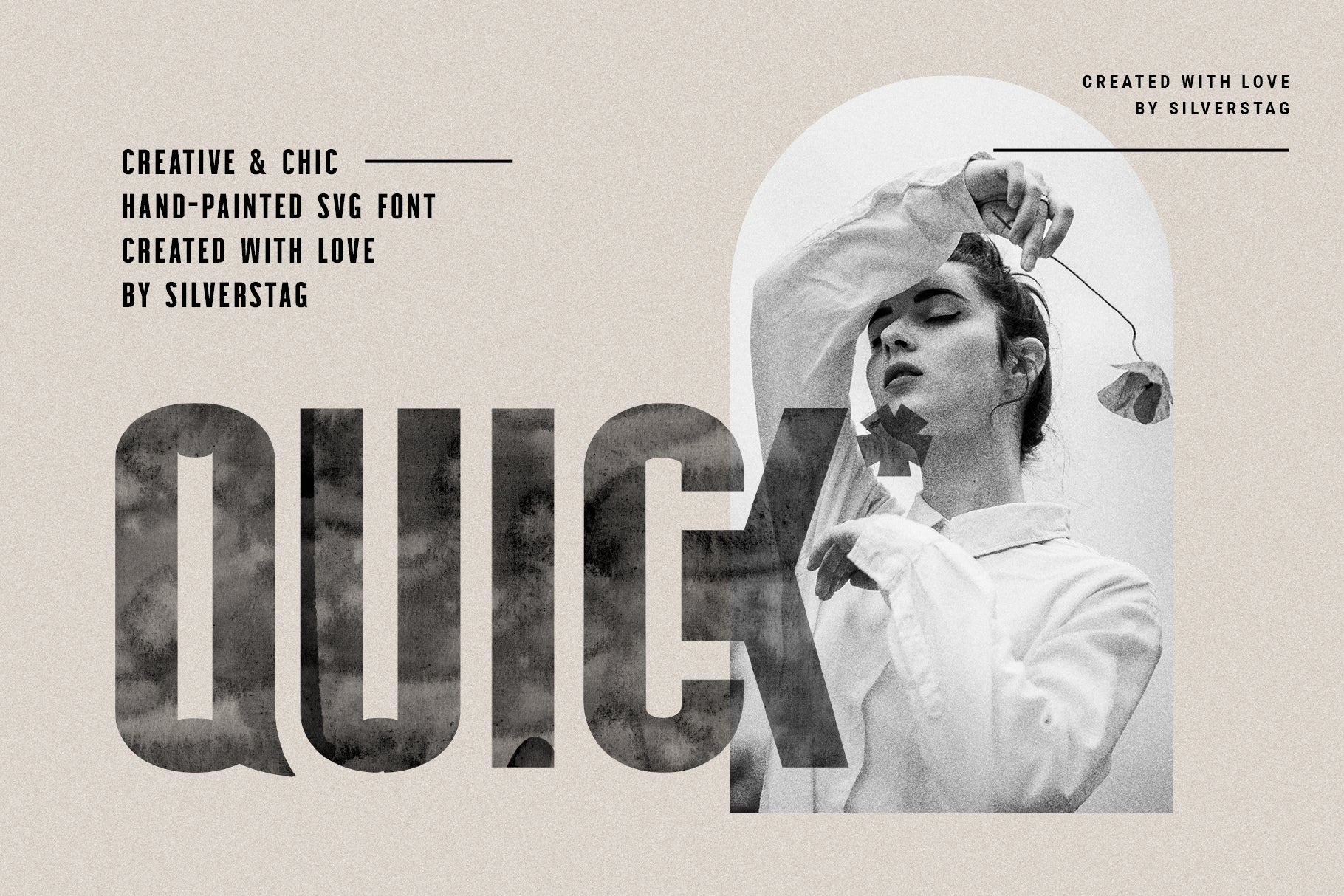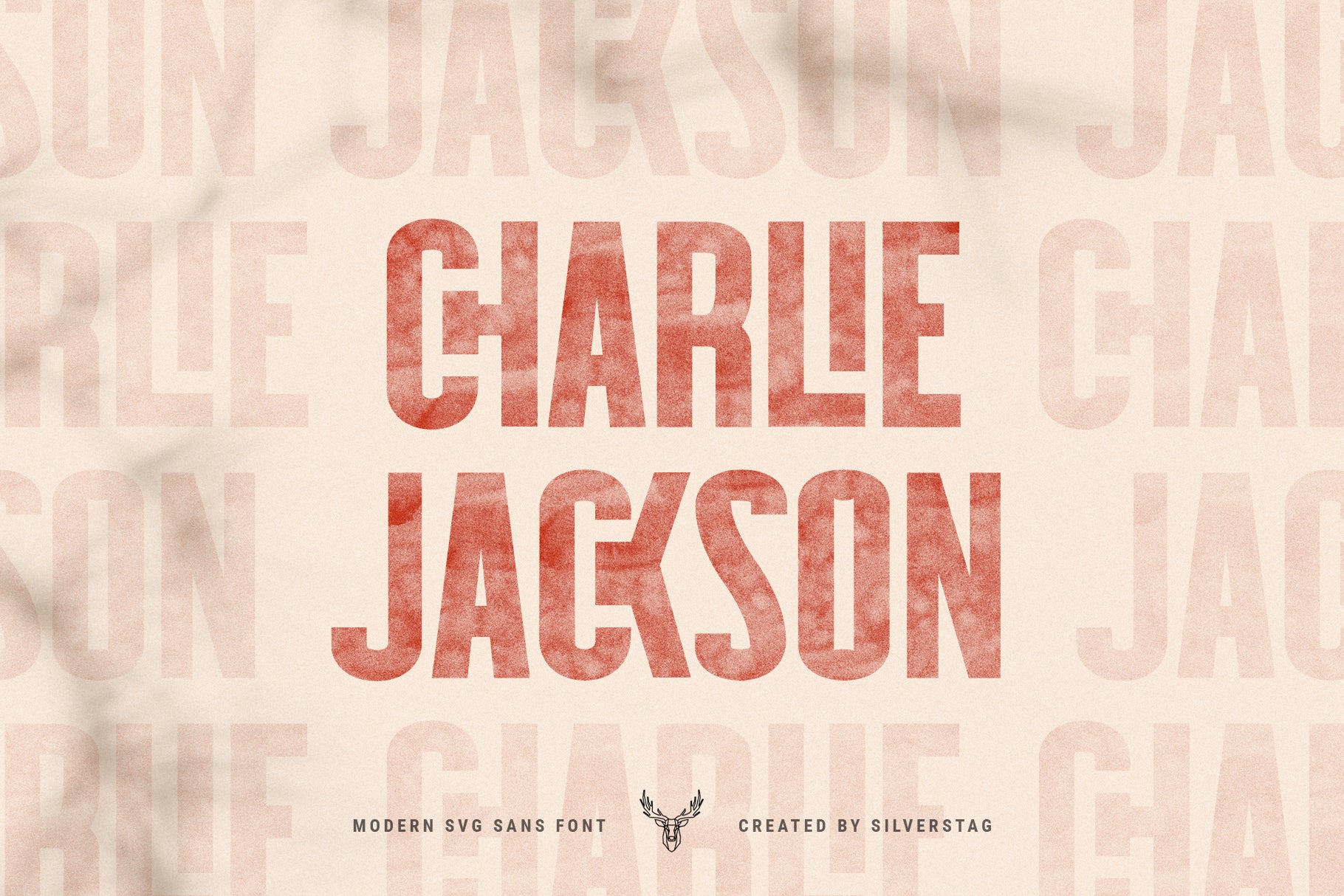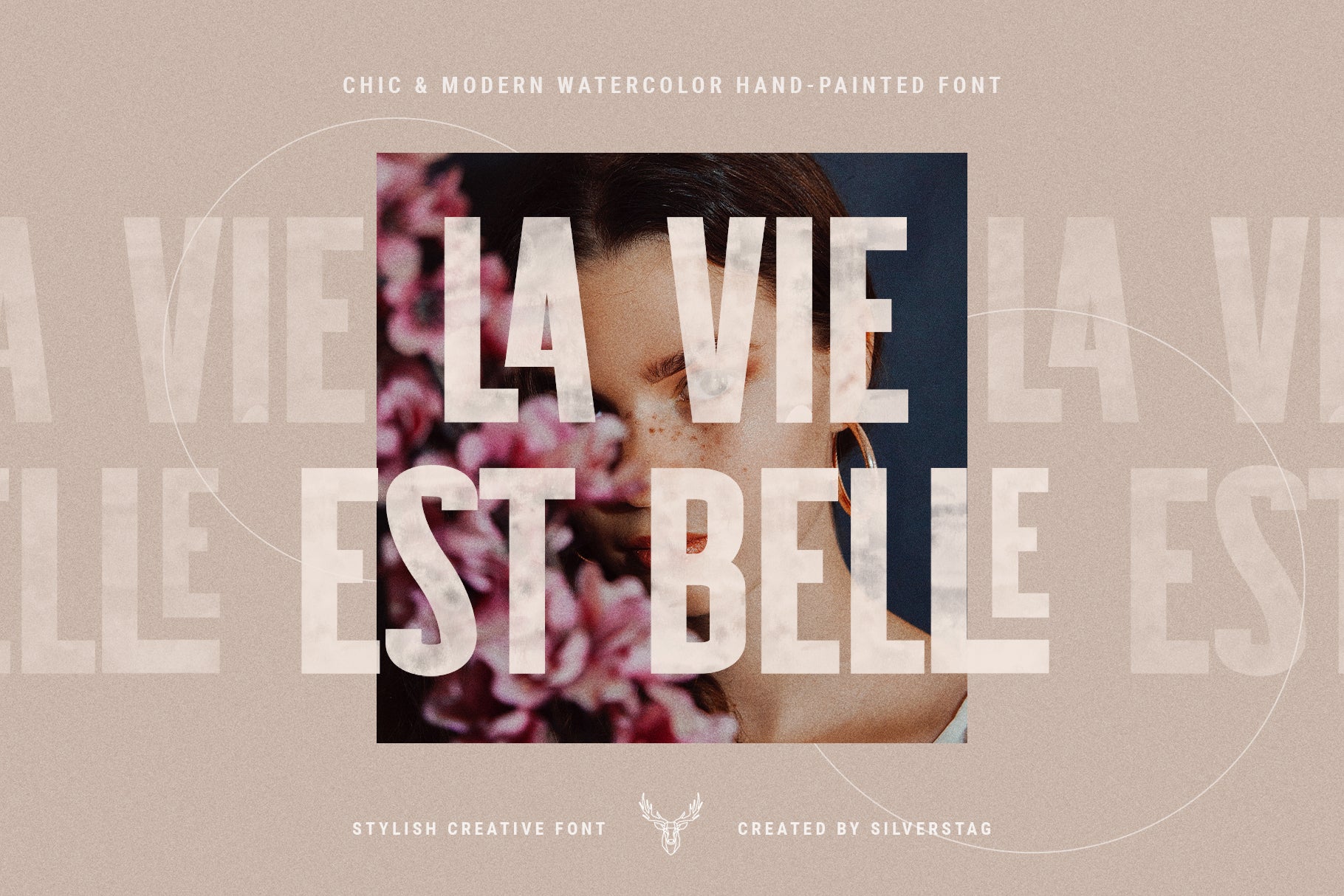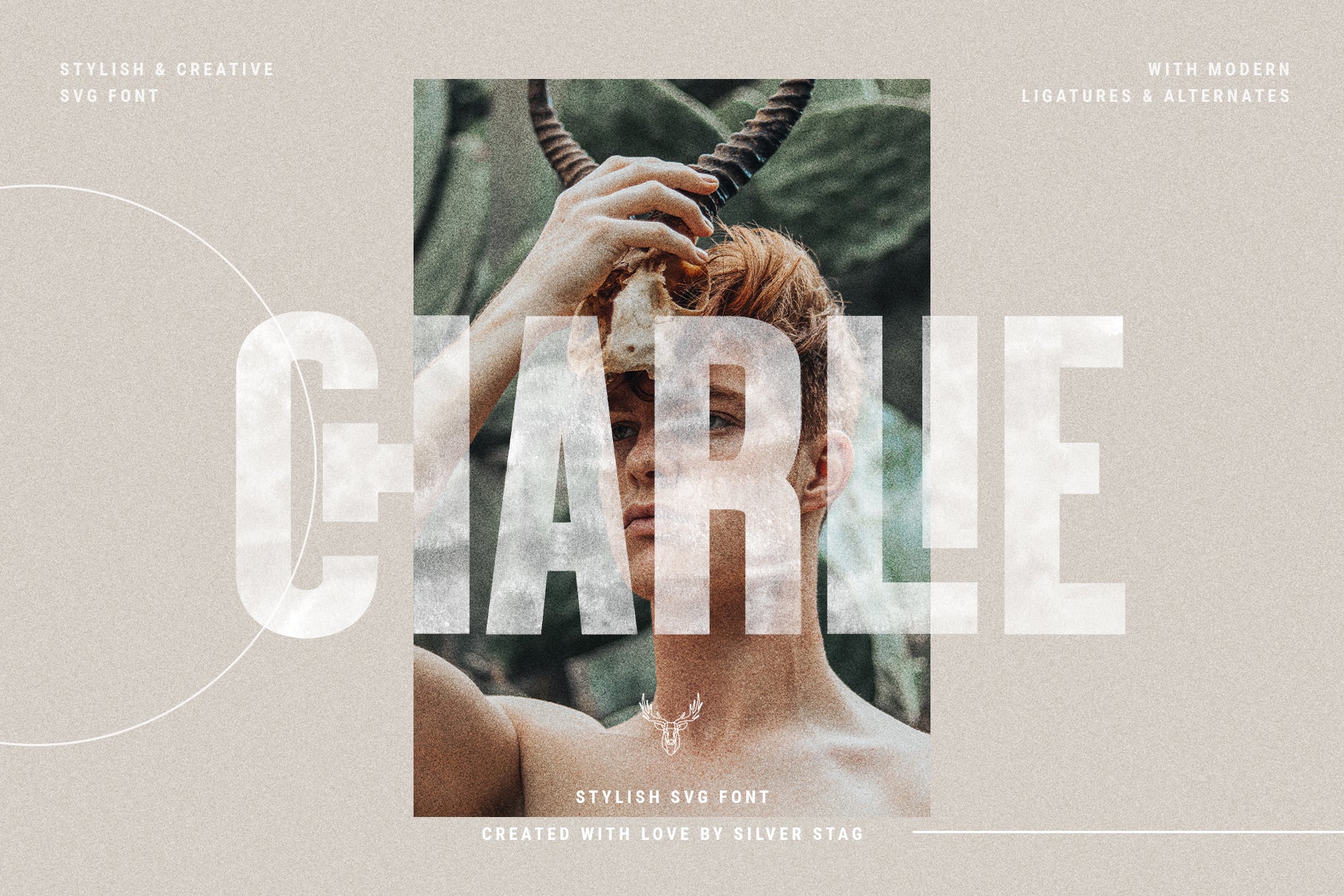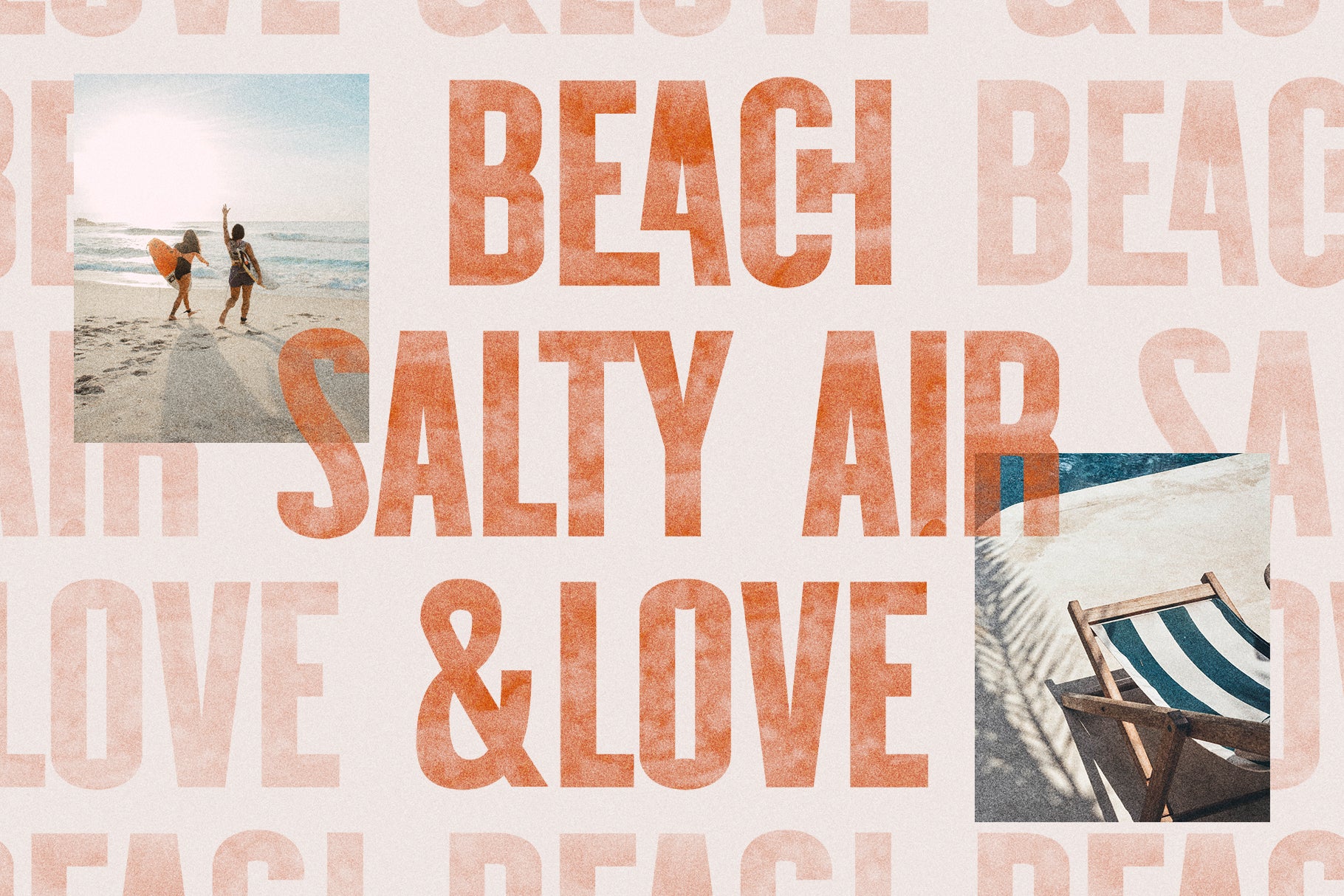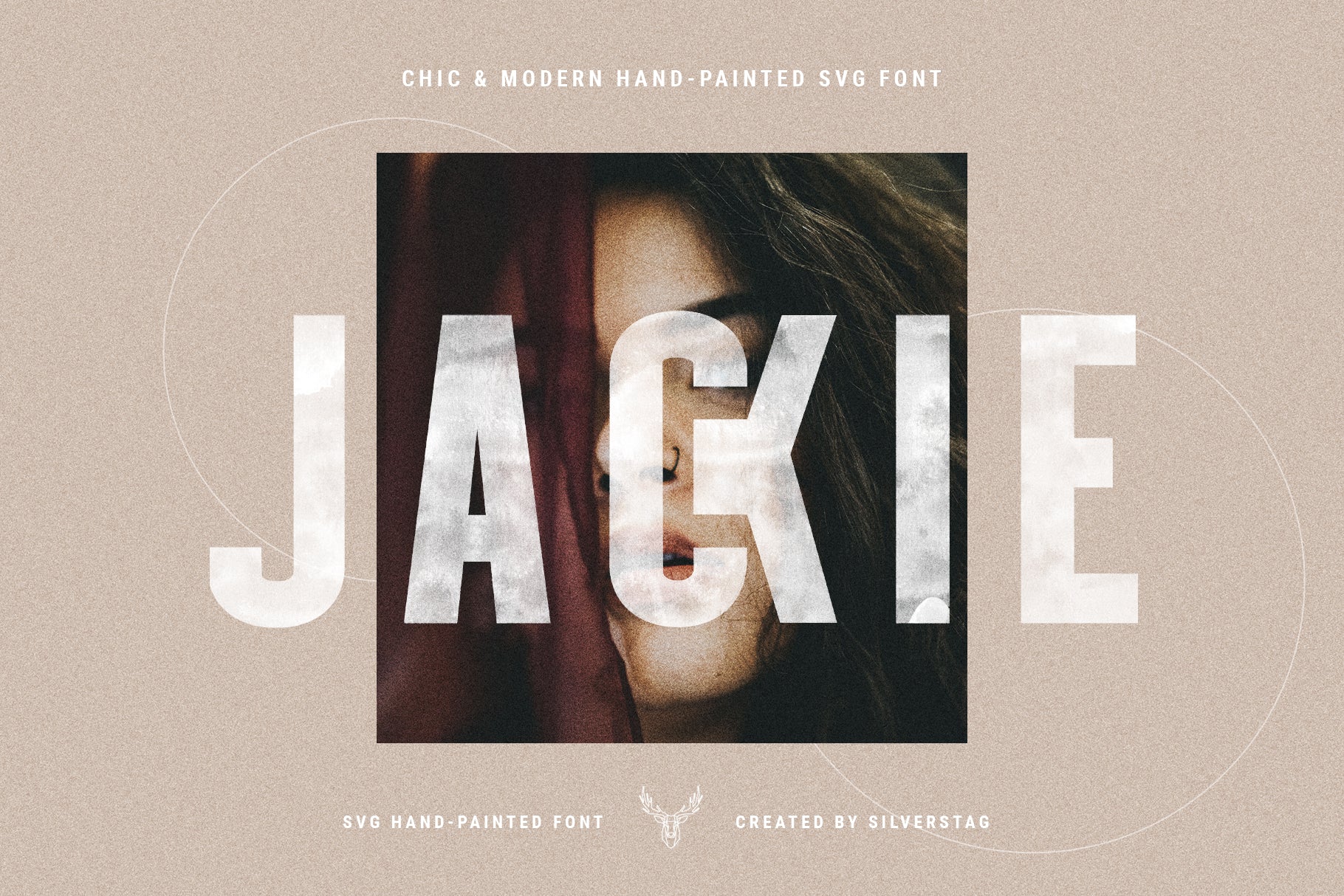
Say hello to spring with QUICK, a bold and modern hand-painted SVG font that brings your designs to life with its authentic watercolor texture and expressive style. Meticulously created for designers who want a raw, artistic edge, QUICK adds depth and uniqueness to logos, posters, packaging, and social media content.